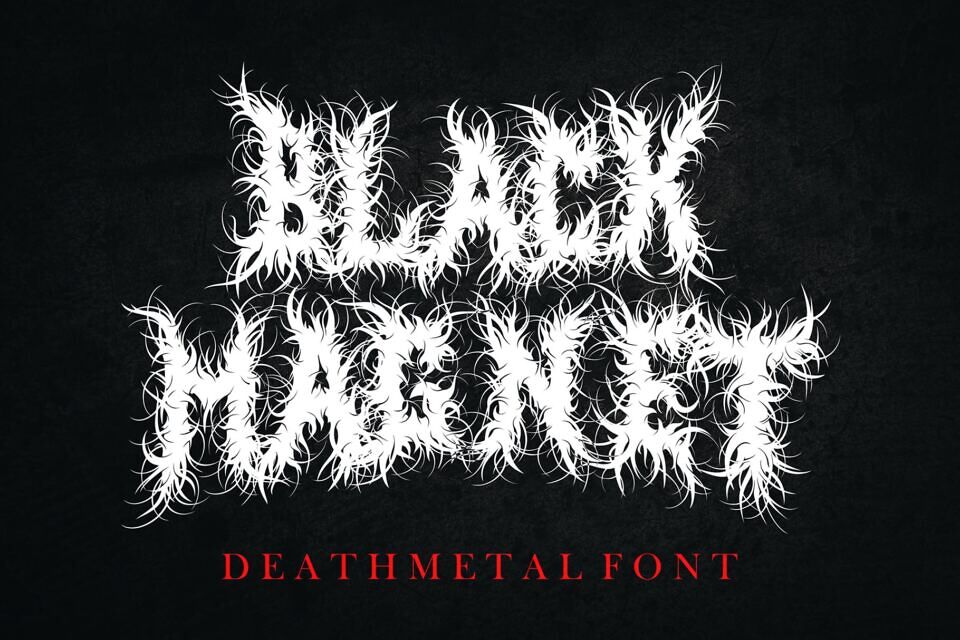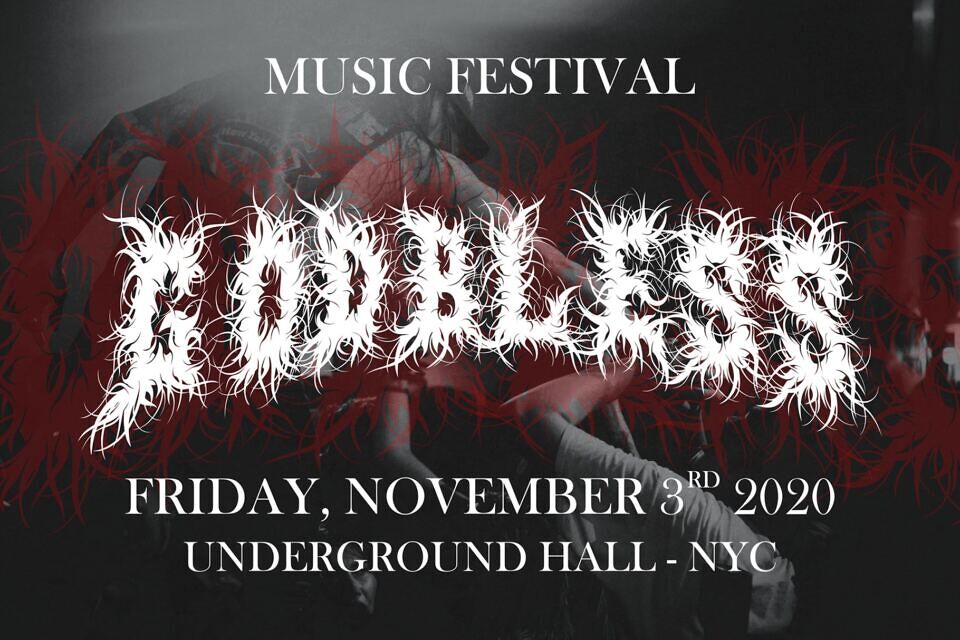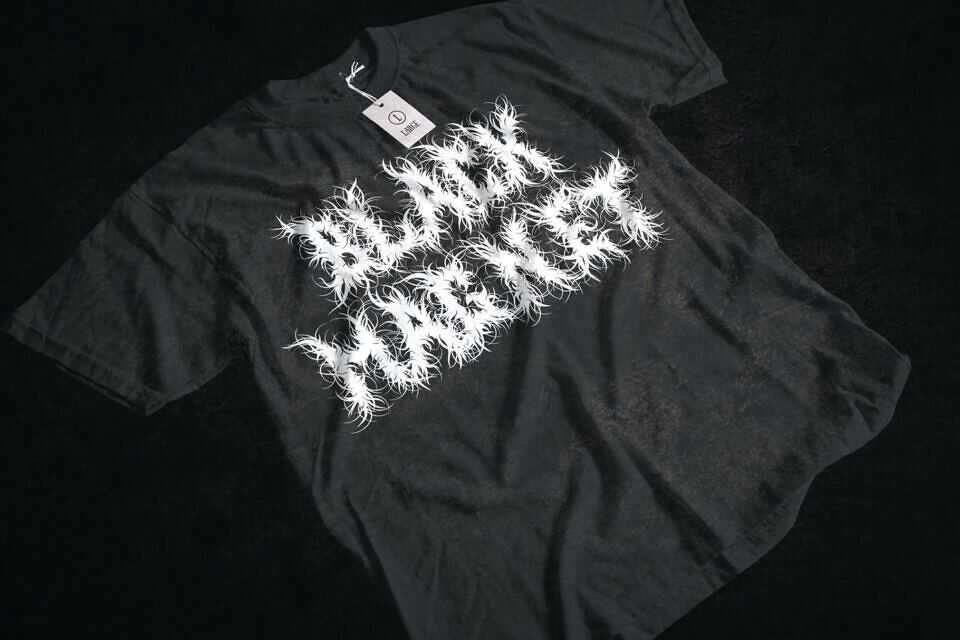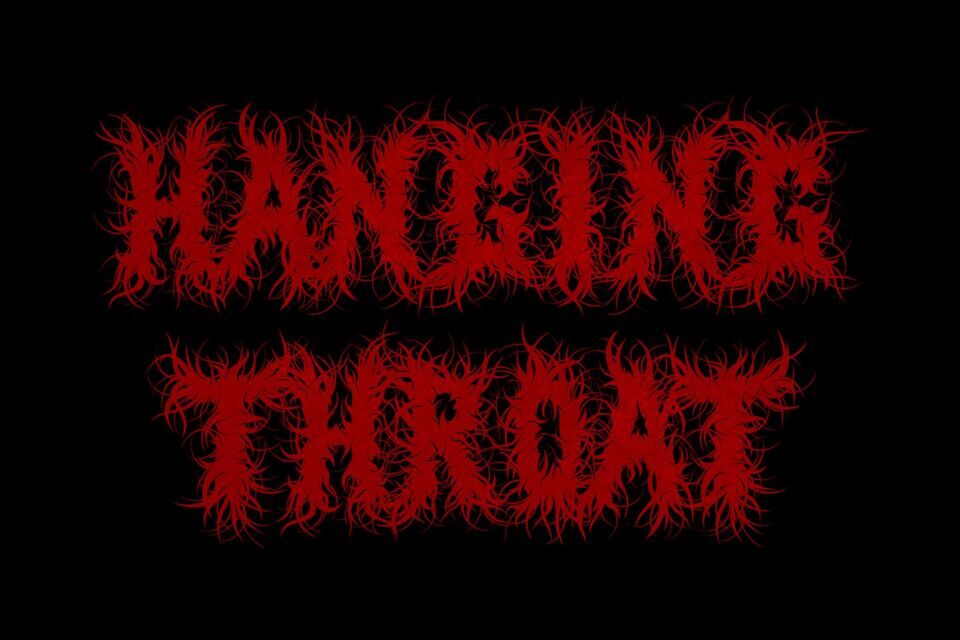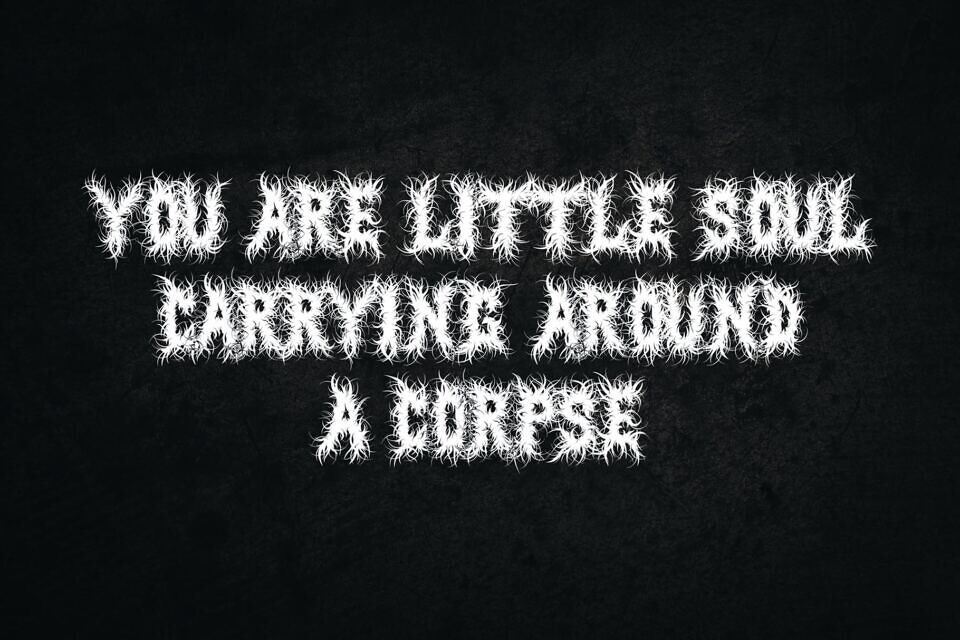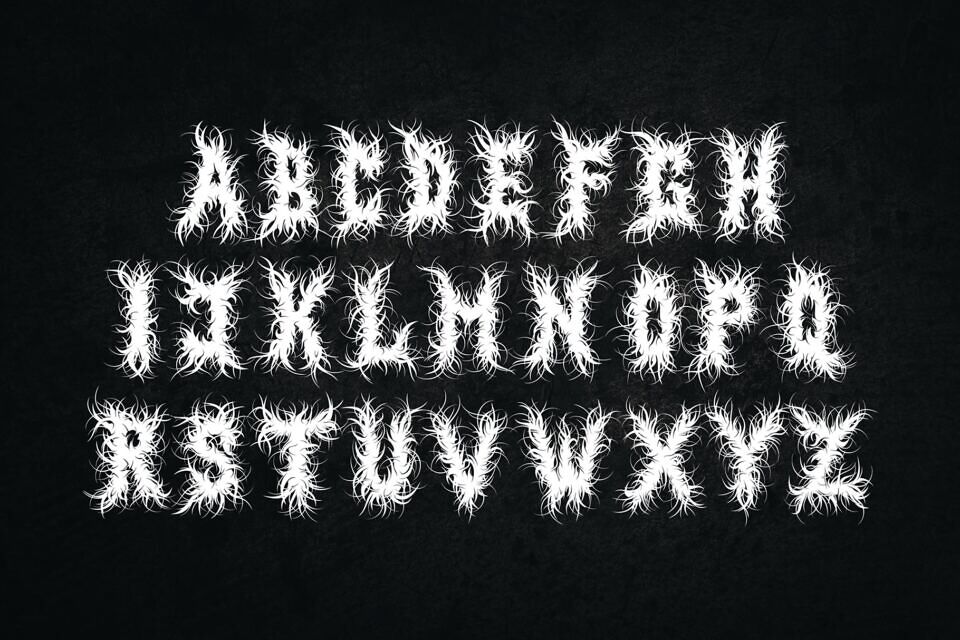
Black Magnet Font
Black Magnet is great looking, badass, and each character was designed with great composition. Of course, this font is very suitable for you that like death metal music, design, your clothing, logo, and many others.